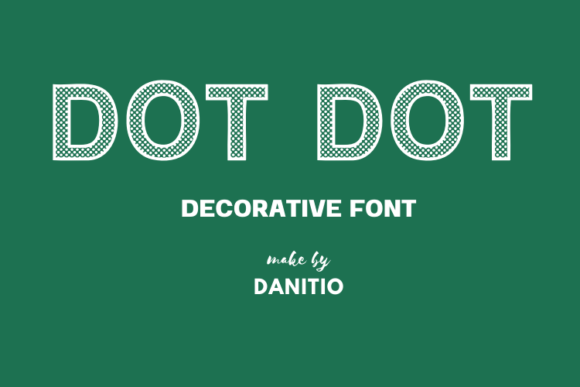
The Perfect Dots: Unlocking the Power of Dot Dot Font
Remember that moment when you’re brainstorming ideas for a project, and suddenly a spark of creativity hits you? Maybe it’s the combination of colors, shapes, or even typography that sets your imagination ablaze. For designers, that spark often comes from discovering the right font to convey their message.
Enter Dot Dot Font, a playful and charming decorative font that’s making waves in the design world. This adorable font features a unique dot pattern that’s sure to add a touch of whimsy to any design project. Whether you’re creating digital content, presentations, or even physical products like t-shirts and mugs, Dot Dot Font is the perfect addition to elevate your design.
Key Features of Dot Dot Font
- Font Family: Dot Dot Font is a sans-serif font family that includes 4 styles: Regular, Italic, Bold, and Bold Italic.
- Character Count: The font family includes a wide range of characters, including Latin, Cyrillic, and Greek alphabets, as well as punctuation and symbols.
- Unique Characteristics: Dot Dot Font features a unique geometric design, with clean lines and a minimalist aesthetic, making it ideal for modern and sleek designs.
Designer Review: Dot Dot Font
As a designer, I’ve had the chance to work with a wide range of fonts, but the Dot Dot Font has left a lasting impression. Here’s my honest take on this digital font.
- Unique Aesthetic: The Dot Dot Font has a quirky, playful feel that’s hard to find in other digital fonts. Its geometric shapes and rounded edges create a visually appealing design.
- Customization Options: The font offers a range of weights, from light to bold, allowing for flexibility in design projects.
- Scalability: The Dot Dot Font looks great at various sizes, making it suitable for both small and large-scale projects.
- Limited Character Set: The font’s character set is limited, which may cause issues when working with non-English languages or special characters.
- Lack of Italic and Oblique Styles: While the font has various weights, it lacks italic and oblique styles, which may be a drawback for designers who prefer to use these styles.
The Dot Dot Font is a great addition to any designer’s toolkit. Its unique aesthetic and customization options make it a versatile choice for various design projects. However, its limitations, such as the limited character set and lack of italic and oblique styles, may be a concern for some designers. Overall, I would recommend the Dot Dot Font for designers who want to add a touch of quirkiness to their designs.
Getting the Most Out of Dot Dot Font
To get the most out of Dot Dot Font, use it for designs that require a unique and playful touch. It’s perfect for social media graphics, flyers, and posters. You can also use it to create a fun and quirky logo or branding material.
Some common use cases for Dot Dot Font include:
- Social media graphics
- Flyers and posters
- Invitations and event materials